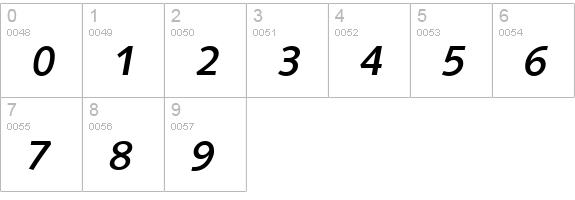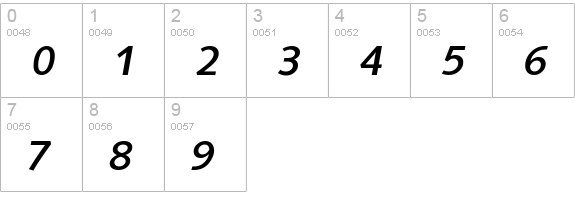
SaxonySerial-Medium-Italic Font Details
SaxonySerial-Medium-Italic is a balanced, medium-weight, italic variant in the SaxonySerial typeface family \xE2\x80\x94 well suited to sub-headlines, navigation, and balanced editorial work.
SaxonySerial-Medium-Italic font exudes elegance and sophistication with its sleek, modern design. The italicized style adds a touch of flair and character to any text, making it perfect for projects that require a touch of sophistication. This font is not only visually appealing but also versatile, suitable for a wide range of design applications such as logos, branding, invitations, and more. Its medium weight strikes the perfect balance between readability and style, making it ideal for both body text and headlines. The best part? SaxonySerial-Medium-Italic font is available for free download at FontsMarket.com. Now you can enhance your designs with this stylish and refined font without breaking the bank. Don't miss out on this opportunity to elevate your projects with SaxonySerial-Medium-Italic font today!